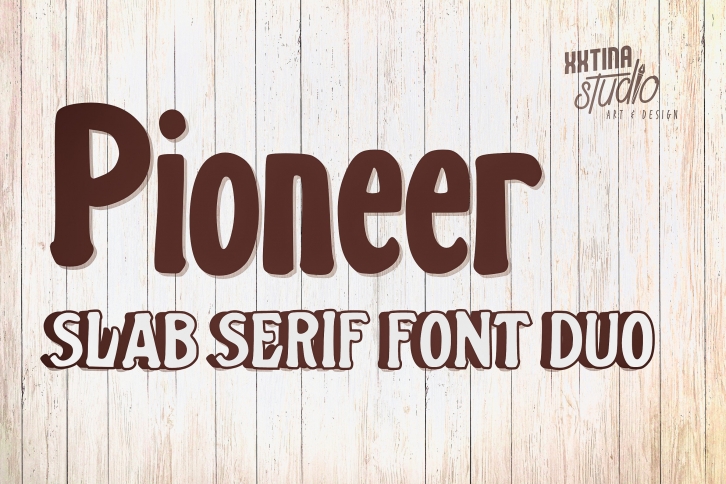
Pioneer is a cool and modern slab serif font. Contemporary and fresh, it is perfect for any design you wish to create. Add it to your creative projects and make them outstanding!